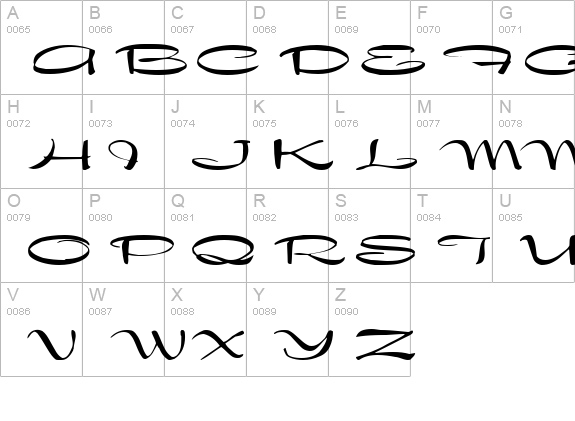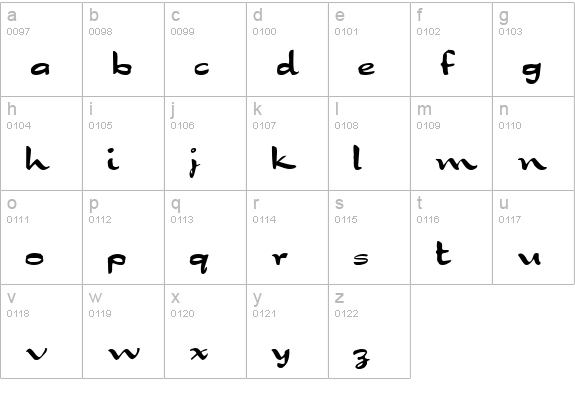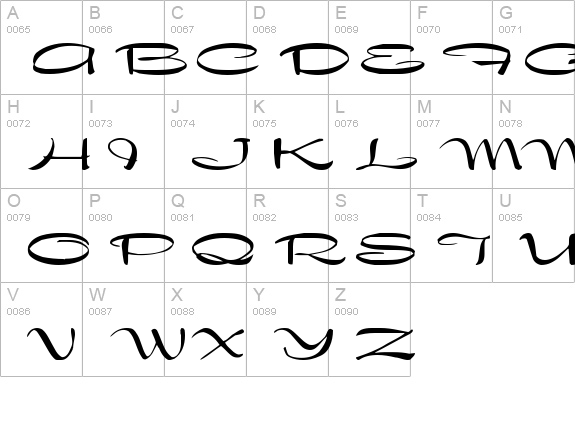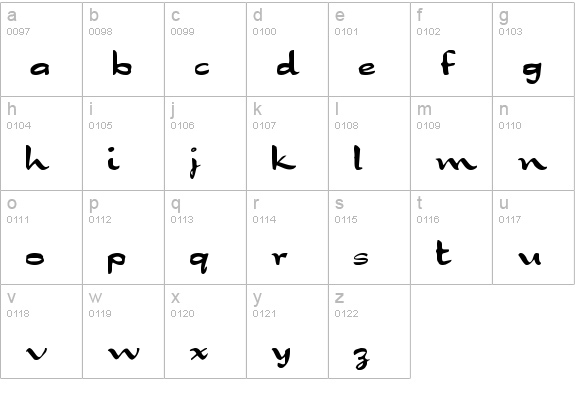
Dragon Regular is the standard, neutral variant in the Dragon typeface family \xE2\x80\x94 well suited to general body text, paragraphs, and standard typographic work.
Dragon Regular font is a captivating and versatile typeface that embodies power and elegance. With its sharp edges and bold strokes, this font exudes a sense of strength and authority, making it perfect for projects that require a commanding presence. Whether used for headlines, logos, or branding materials, Dragon Regular font is sure to make a bold statement. Best of all, Dragon Regular font is available for free download at FontsMarket.com, allowing you to add this stunning typeface to your collection without any cost. Don't miss out on the opportunity to enhance your designs with the timeless appeal of Dragon Regular font. Download it today and unleash the power of this exceptional typeface in your projects.